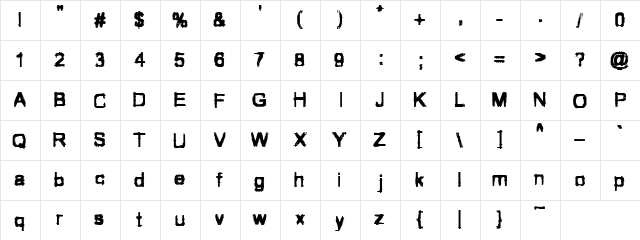
VTC JezzabelBimbo Regular
| Designer | WolfBainX |
Design Context for VTC JezzabelBimbo Typeface
VTC JezzabelBimbo offers clean, dependable letterforms without strong stylistic allegiance, making it a practical choice for designers who need flexibility.